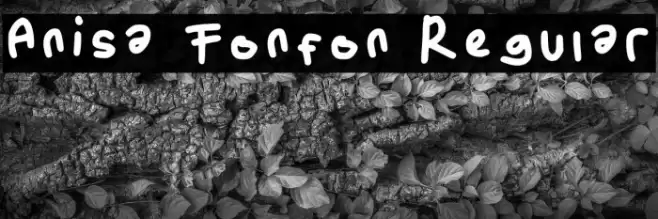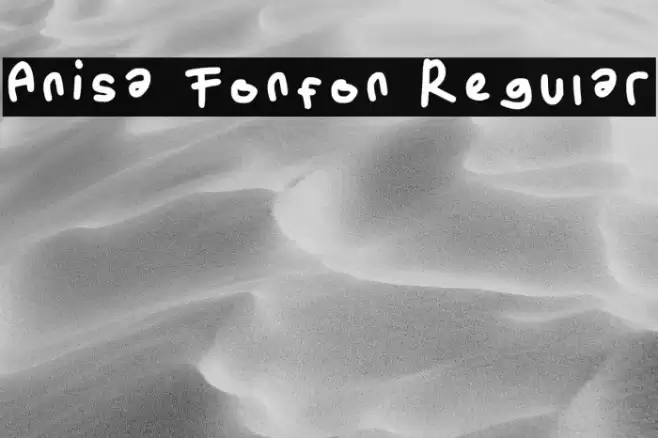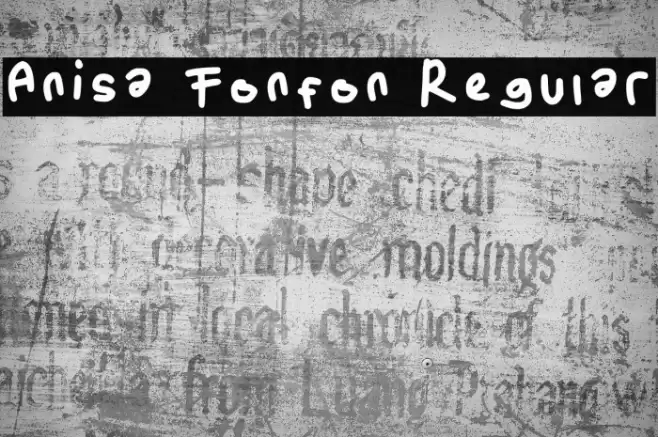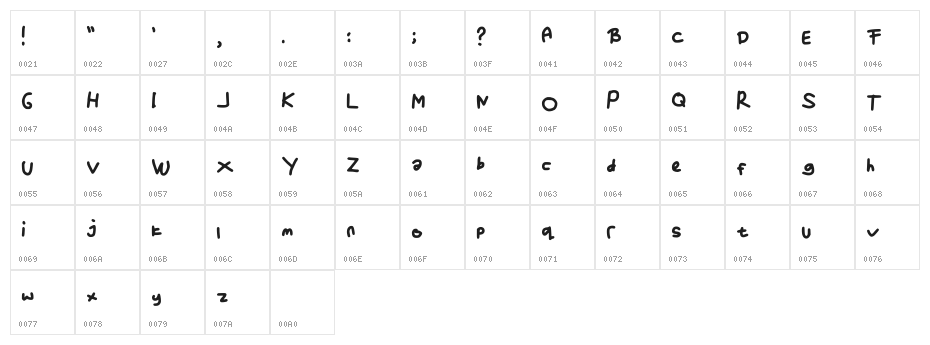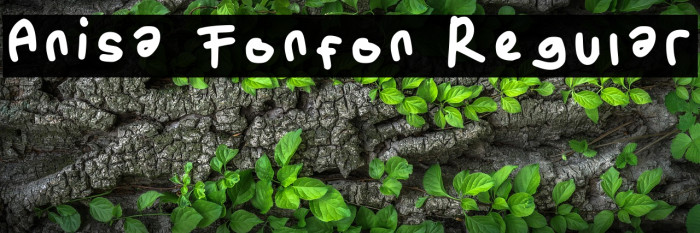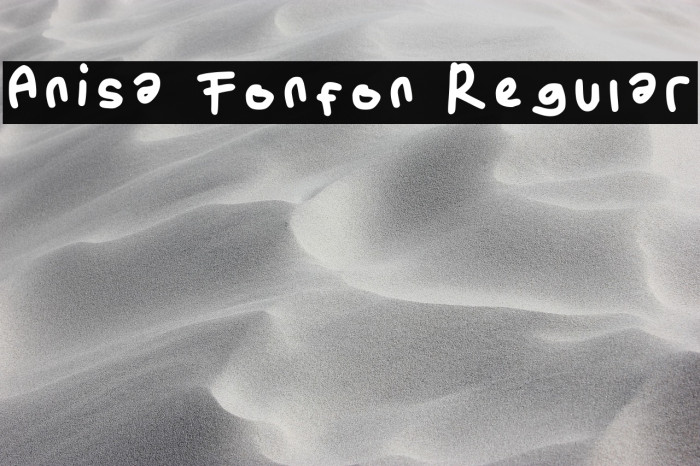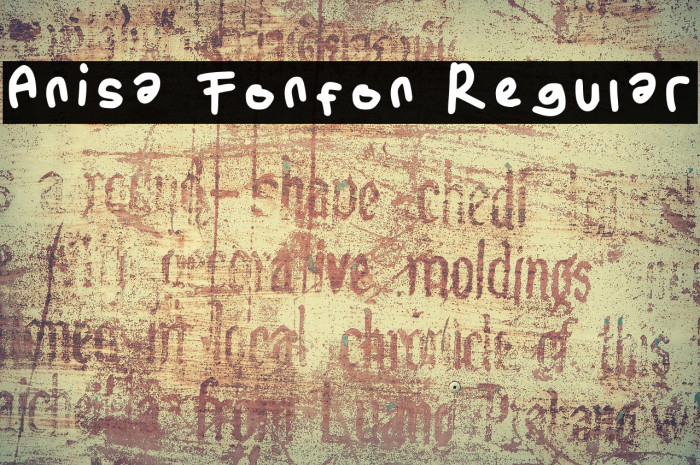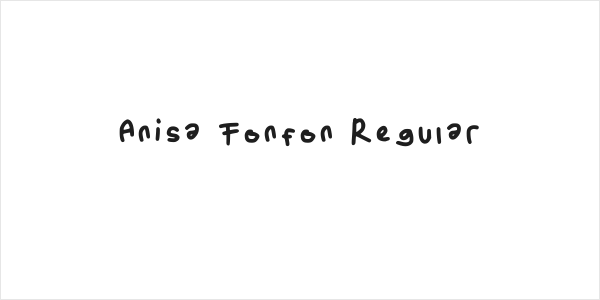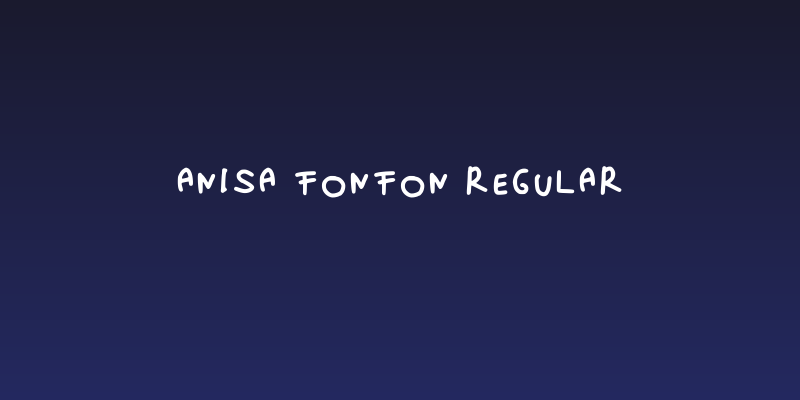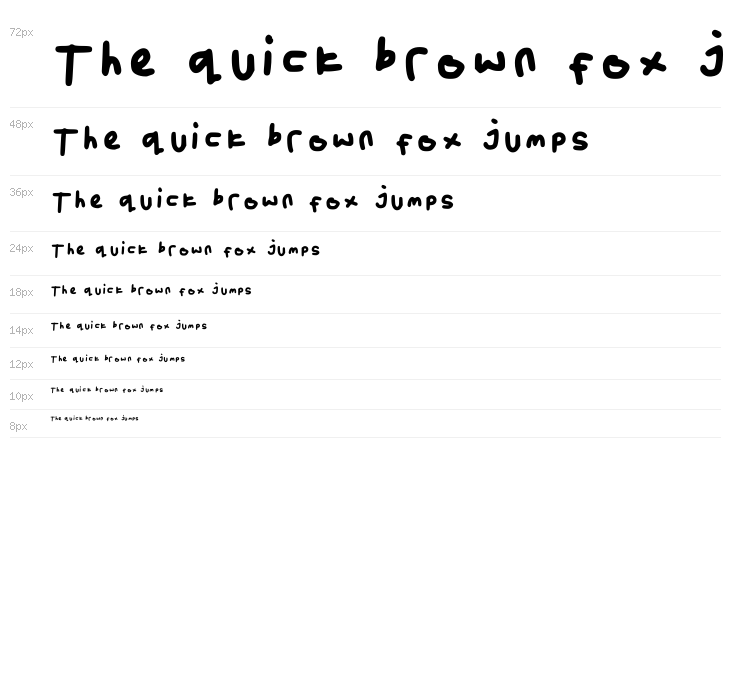
Anisa Fonfon Regular Font
Anisa Fonfon Regular Description
This playful and whimsical font features a handwritten style with a casual and friendly appearance. The characters are rounded and slightly irregular, giving it a charming and approachable feel. The strokes are consistent in width, providing a uniform look across all letters. The uppercase and lowercase letters maintain a similar style, with the lowercase letters slightly smaller and more compact. The numbers and special characters follow the same playful design, making them easily recognizable and cohesive with the rest of the font. This font is perfect for projects that require a personal touch or a fun, informal vibe.
A playful, handwritten font with rounded, consistent strokes and a whimsical style from Regular fonts.
- Proposed Projects: Ideal for children's books, greeting cards, casual invitations, and playful branding.
- Overall Style: Playful
- Use Case: Headlines, Logos, Informal Text